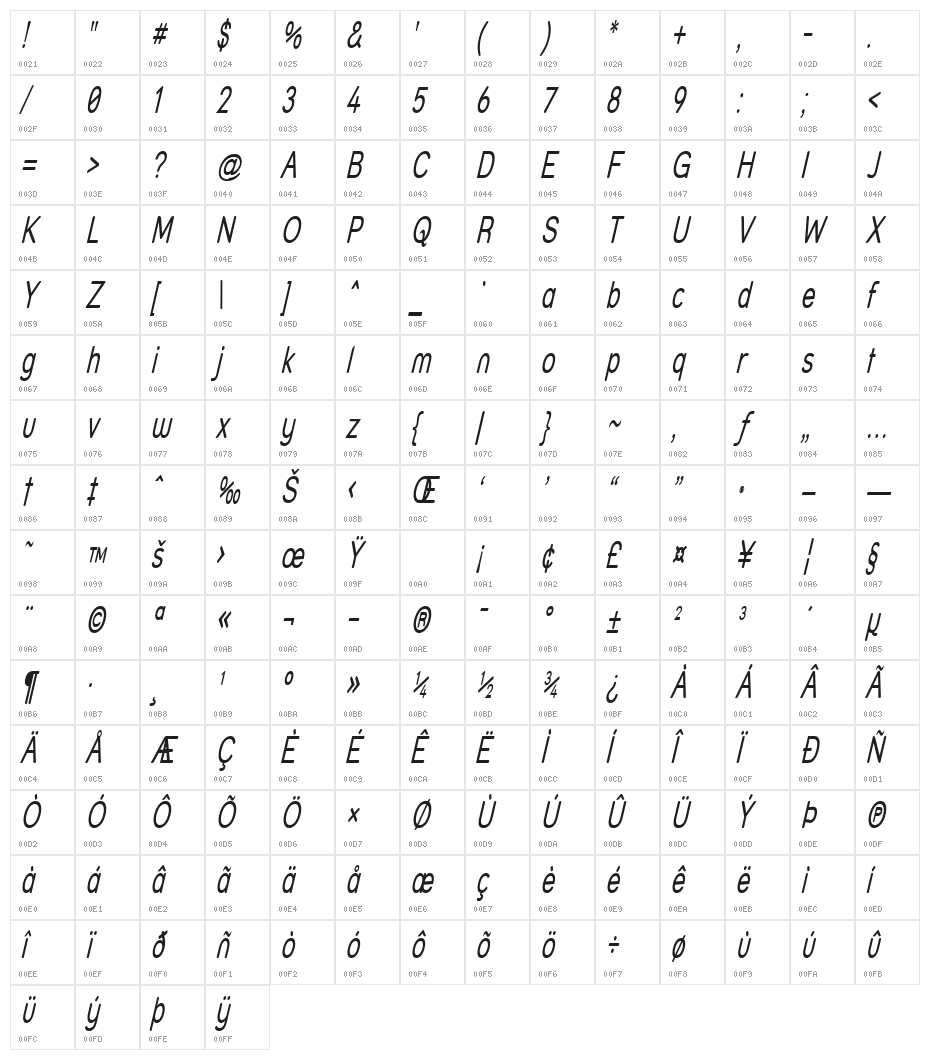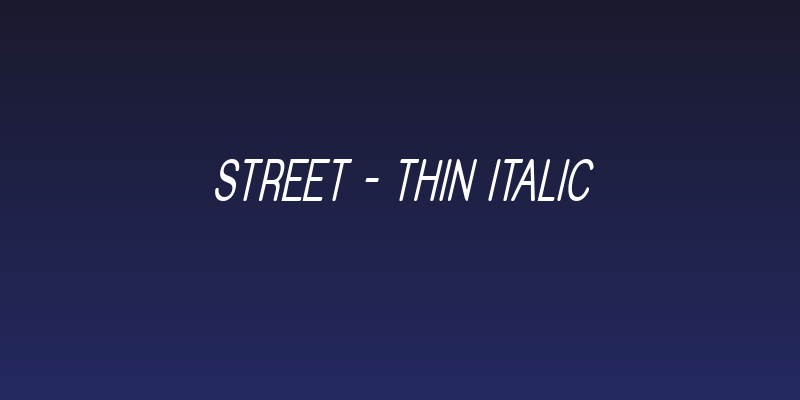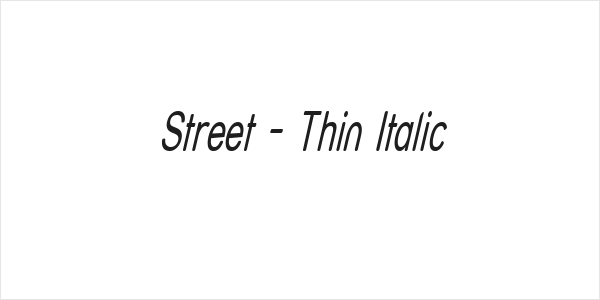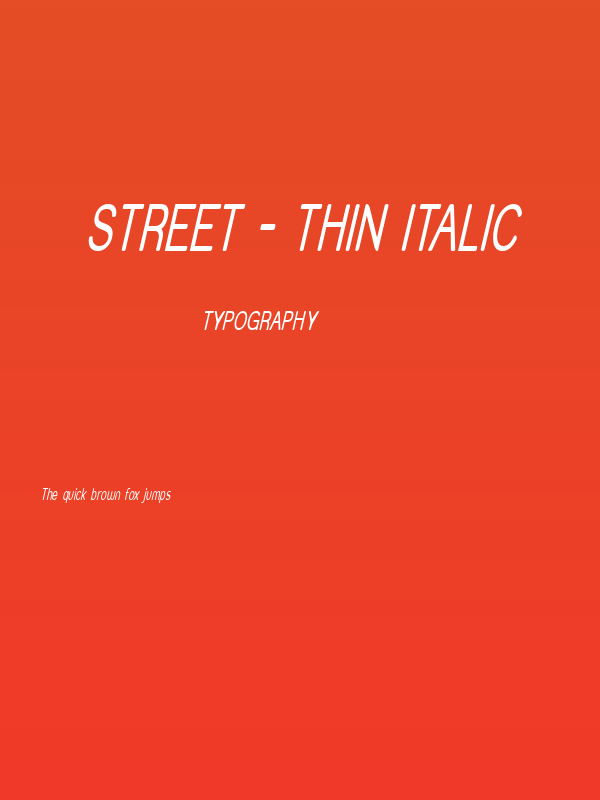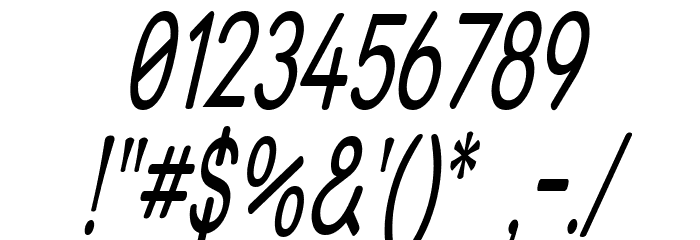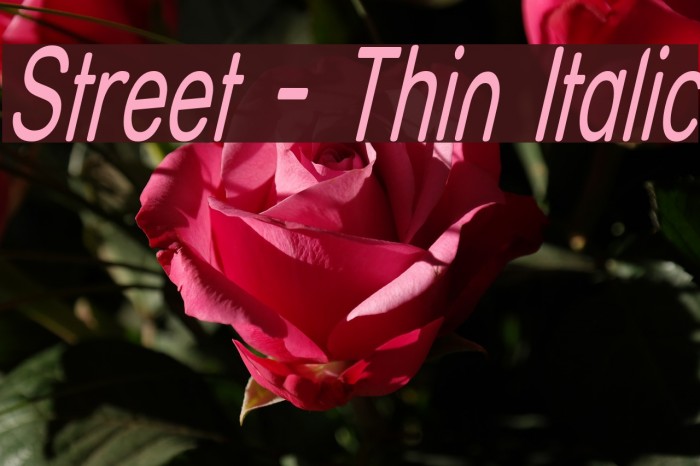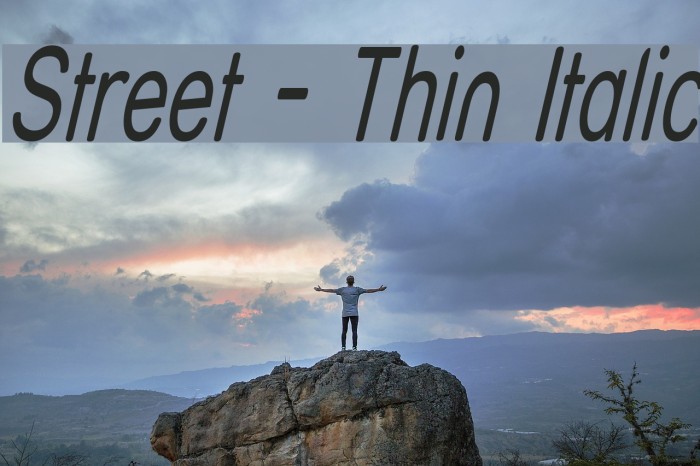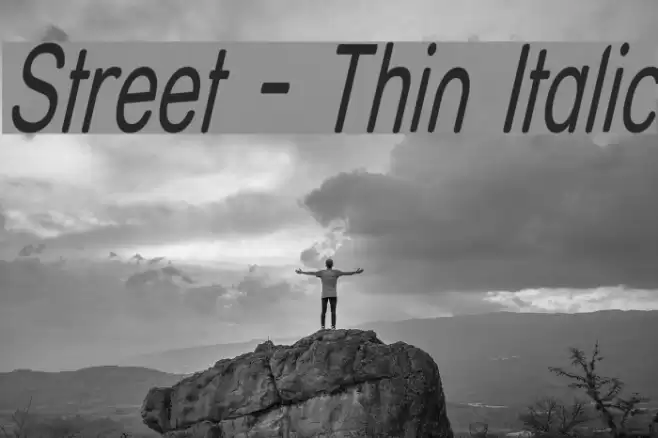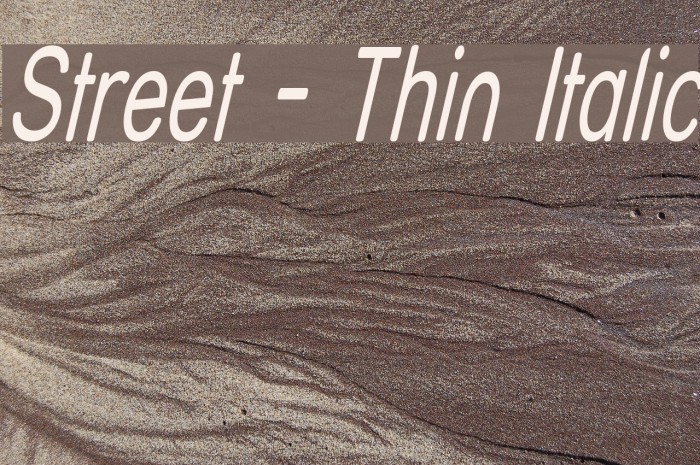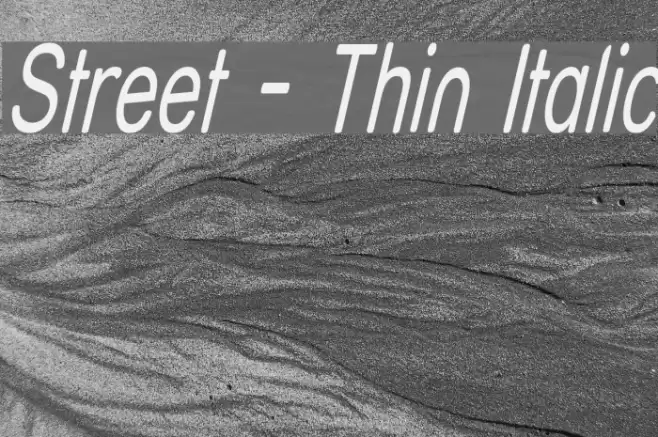
Street - Thin Italic Font
Street - Thin Italic Description
This font features a sleek and modern design with a thin and elegant structure. The italicized style adds a dynamic and sophisticated touch, making it suitable for contemporary design projects. The characters are slightly slanted, giving a sense of motion and fluidity. The font maintains a consistent stroke width throughout, contributing to its clean and minimalist appearance. It includes a full set of uppercase and lowercase letters, numbers, and a variety of special characters, ensuring versatility in use.
| Use Case | Headlines, Body text, Logos |
| Proposed Projects | Ideal for fashion magazines, modern branding, elegant invitations, and dynamic web design. |